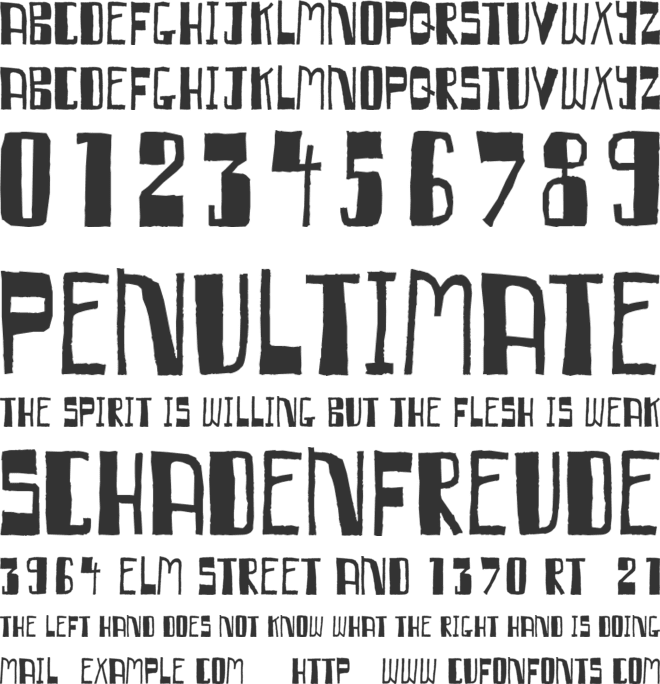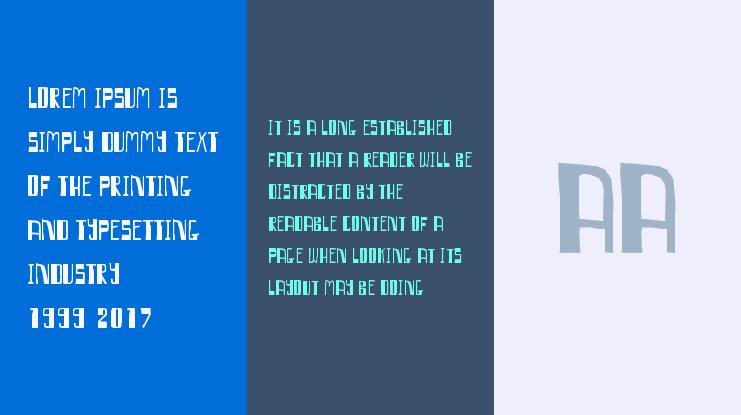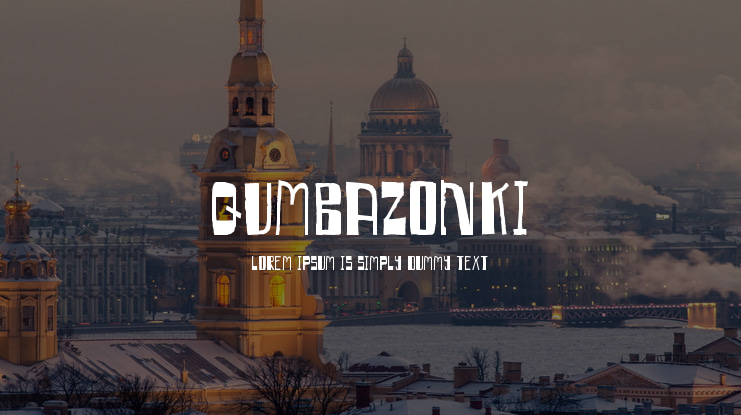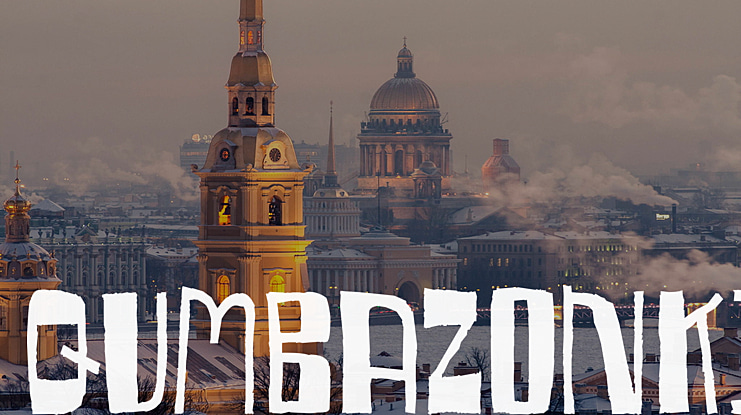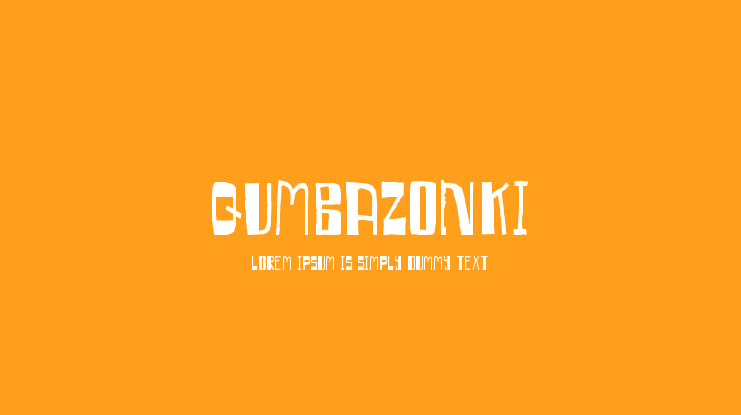
Qumbazonki Font
Inspired by the engraved messages carved into tree trunks in my part of Africa, this typeface is rough and sqwonky, giving a completely original and fresh feel to any project. The extended version of this font has a bunch of African designs added. You can buy it here.